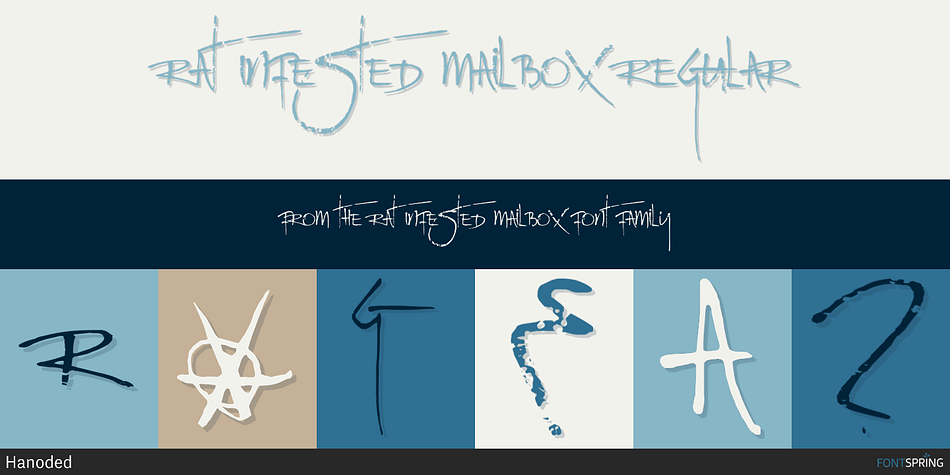
Rat Infested Mailbox is a grunge font published by Hanoded.
Rat Infested Mailbox is a strange, exaggerated typeface with a seriously worn-out look. It can be used for posters, cards and websites. It will certainly give your designs an unusual touch.